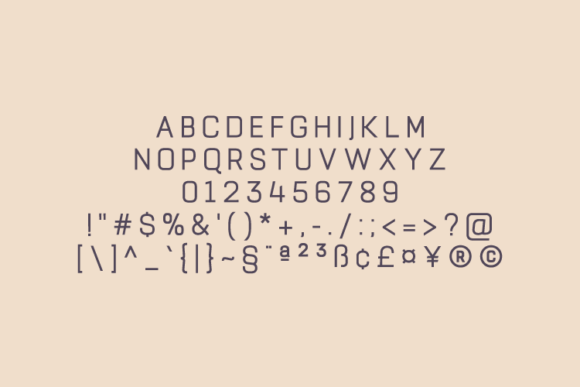
Designing with a Touch of Vintage Charm
Have you ever been rummaging through an old trunk in your attic, only to stumble upon a forgotten photograph or a dusty typewriter? For many creatives, moments like these spark a sense of inspiration and nostalgia. It’s as if the past whispers secrets in our ears, urging us to capture its essence in our work. For graphic designers, this feeling often translates into a desire to create pieces that evoke a bygone era – with clean lines, smooth edges, and a hint of nostalgia.
That’s where the Gercoff Semi-Bold Font comes in – a clean and simple vintage sans serif font designed to transport your designs back in time. Its versatility makes it perfect for vintage logo designs, headers, and small amounts of text. For designers, this font is a valuable asset, offering a unique way to add character to their work while maintaining a timeless feel.
Gercoff Semi-Bold Font Key Features
- Font Family: Gercoff Semi-Bold, a unique and elegant sans-serif font
Gercoff Semi-Bold Font Review
Overall, I think Gercoff Semi-Bold is a decent font choice for most projects. ✨ The rounded edges and subtle boldness give it a friendly, approachable feel that works well for branding and marketing materials.
Here are some of its strengths:
- ✨ Versatility: Gercoff Semi-Bold can be used in a variety of contexts, from headings to body text.
- ✨ Readability: The font is easy to read, even at smaller font sizes.
- ✨ Versatility: It works well with both digital and print materials.
- ⚠️ Limited expressiveness: Gercoff Semi-Bold is a fairly straightforward font, which can make it less effective for conveying complex or emotional messages.
- ⚠️ Overuse: Because of its friendly feel, Gercoff Semi-Bold can start to feel generic or clichéd if overused.
Overall, I’d recommend Gercoff Semi-Bold for projects where you want a clean, approachable font that won’t overwhelm your audience. However, for more complex or high-end projects, you may want to consider a more expressive or unique font option.
Getting the Most Out of Gercoff Semi-Bold
Use the Gercoff Semi-Bold font for headings and titles to add a touch of elegance and sophistication to your designs.
Pair the font with other elegant fonts to create a cohesive and professional look.
Experiment with different font sizes and colors to add visual interest to your designs.
Use the Gercoff Semi-Bold font for:
1. Headings and titles
2. Branding and logos
3. Marketing materials and